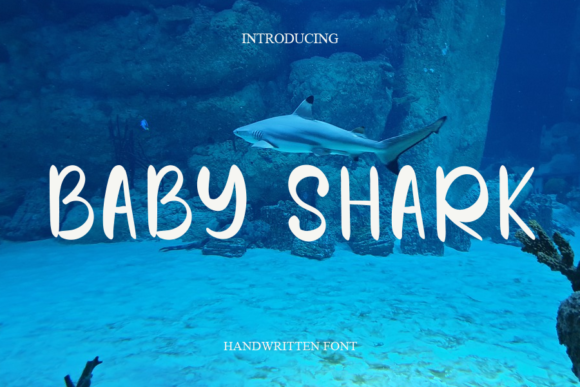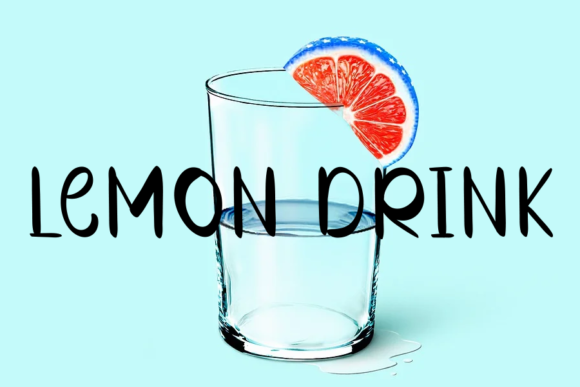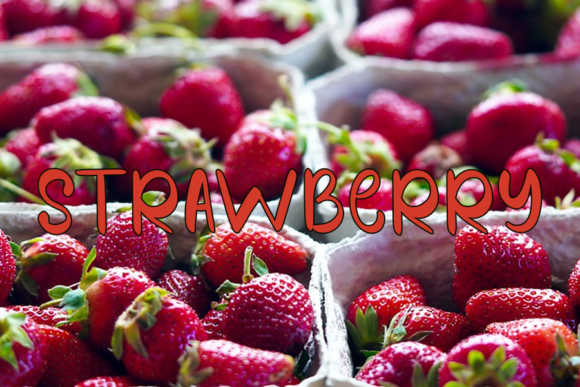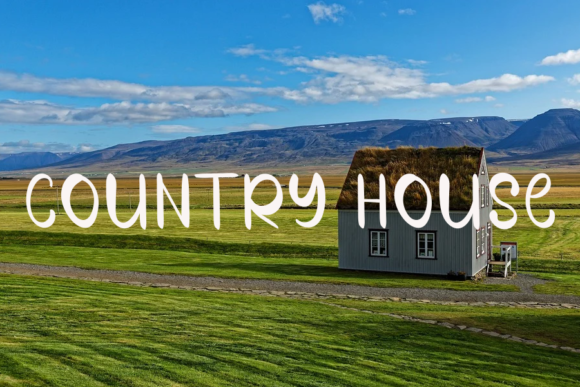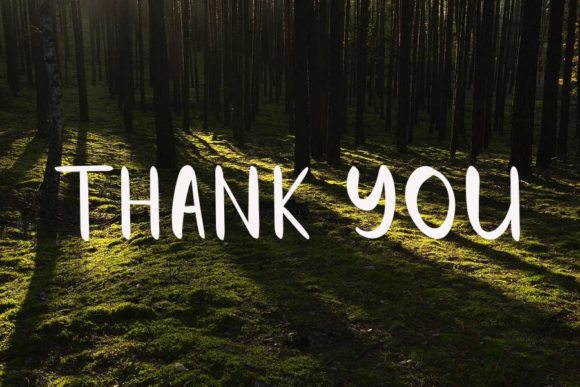
About Baby Shark Font
Baby Shark is a relaxed, adaptable and friendly handwritten font. Whether you’re looking for fonts for Instagram or calligraphy scripts for DIY projects, this font will turn any creative idea into a true piece of art!